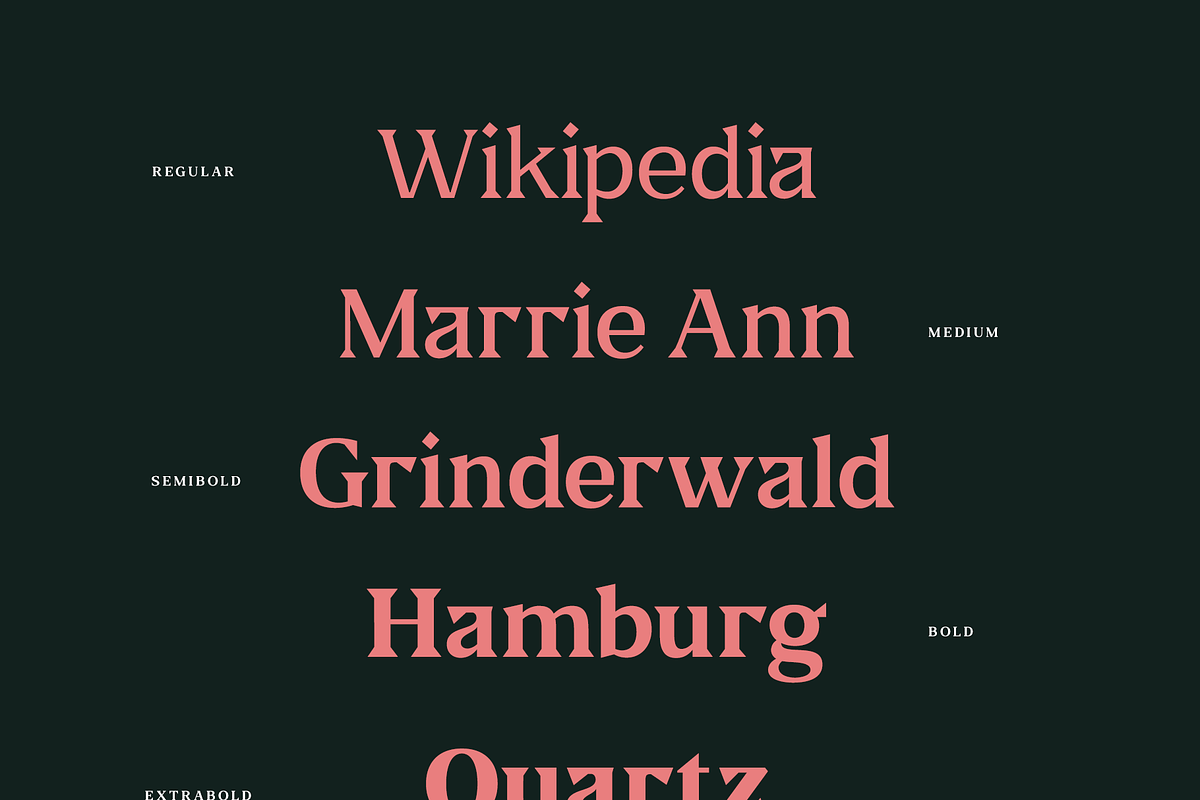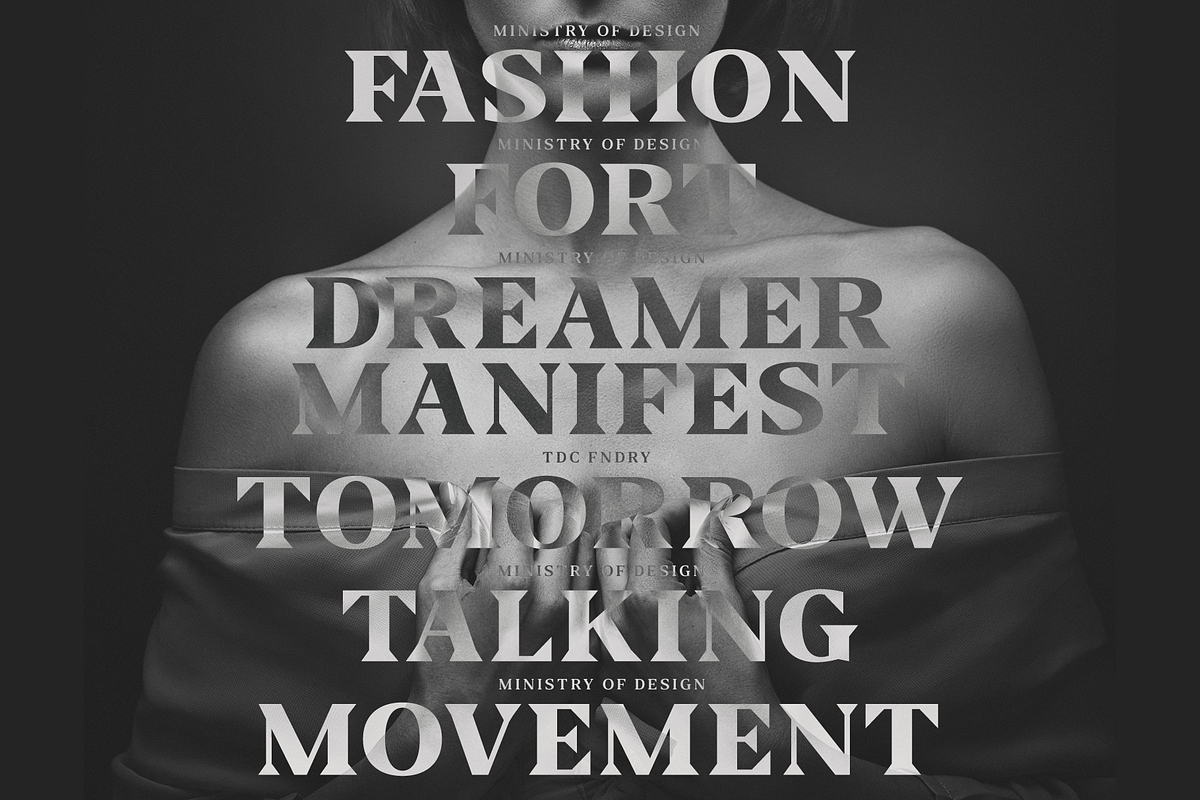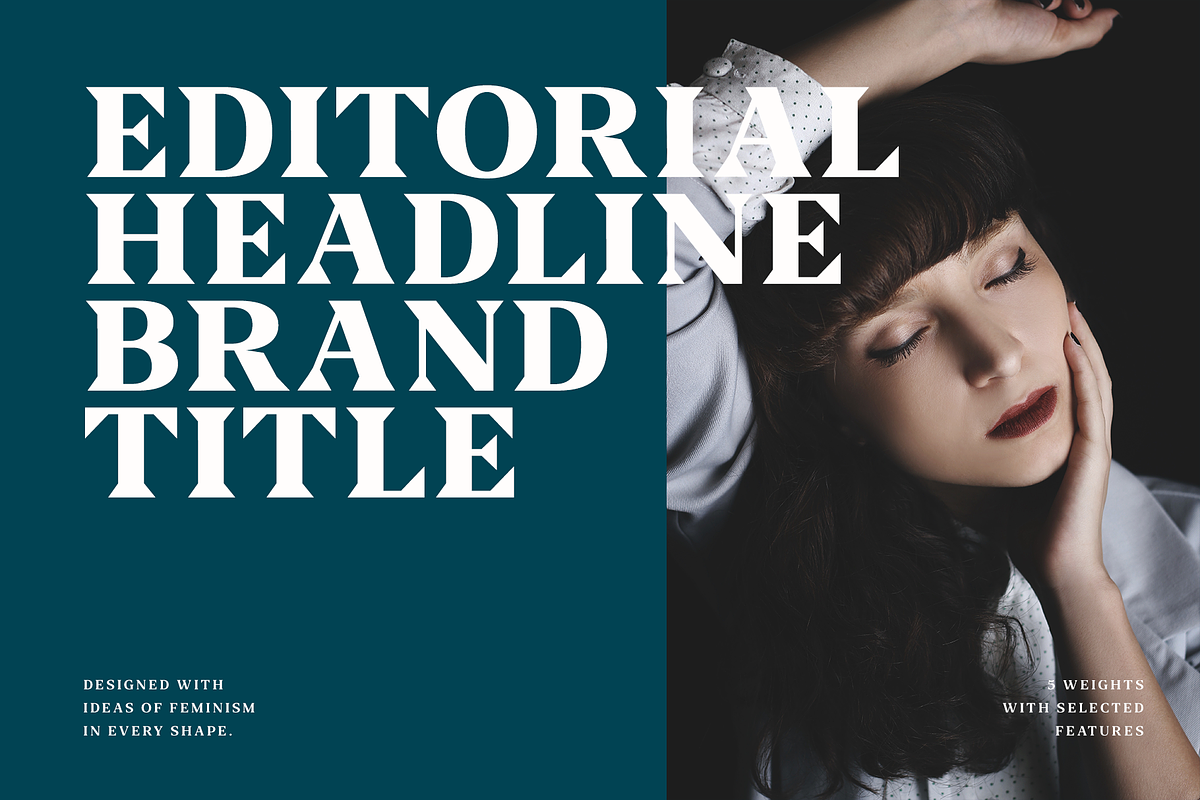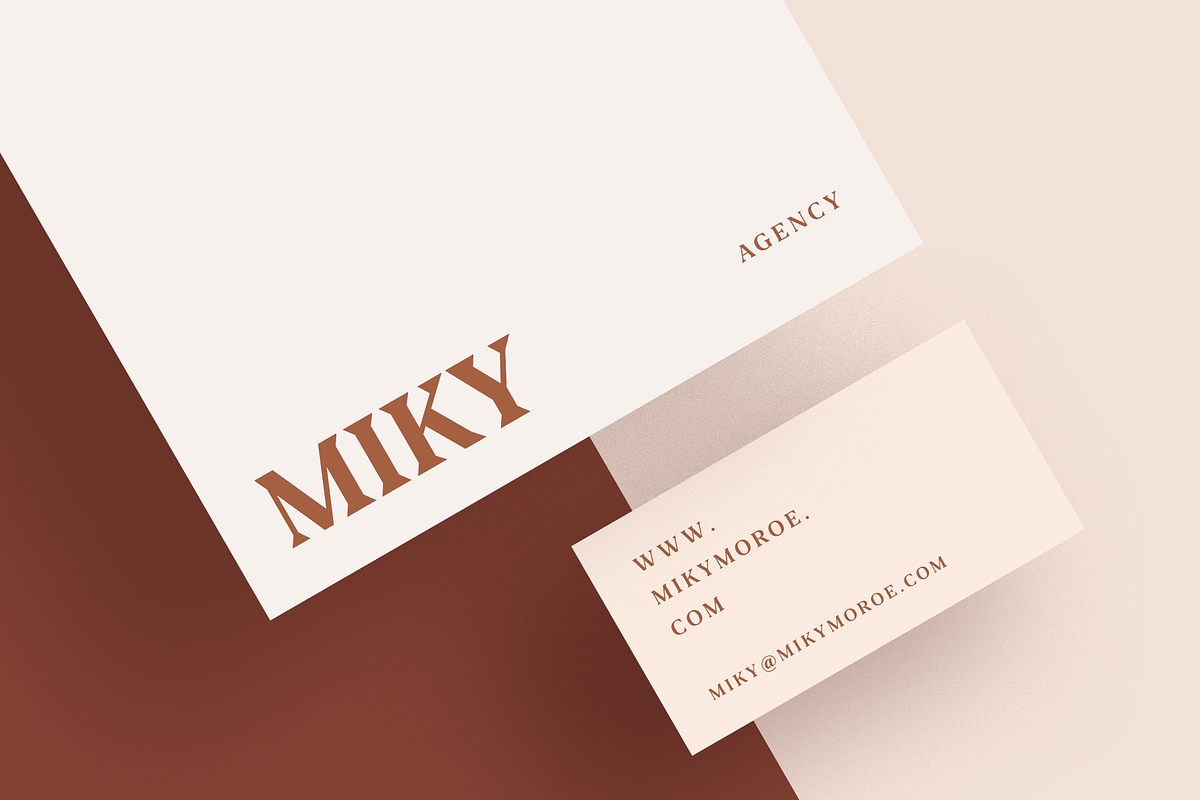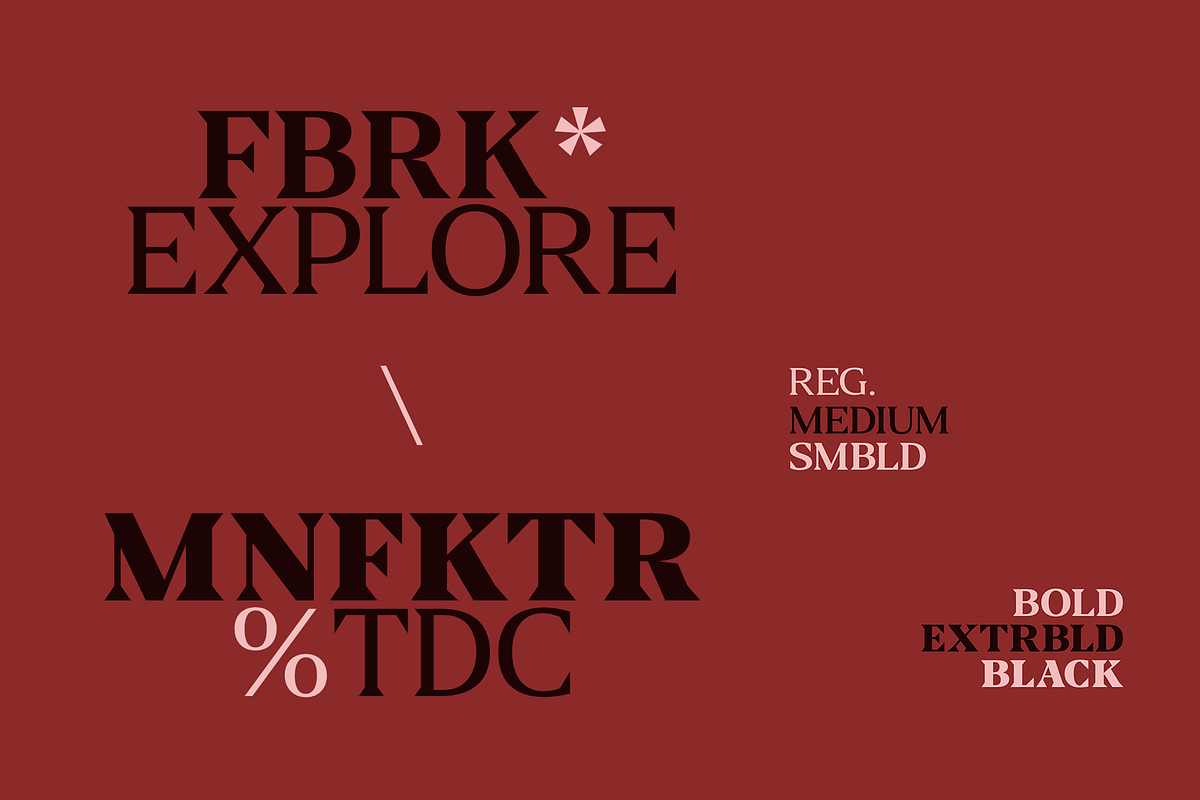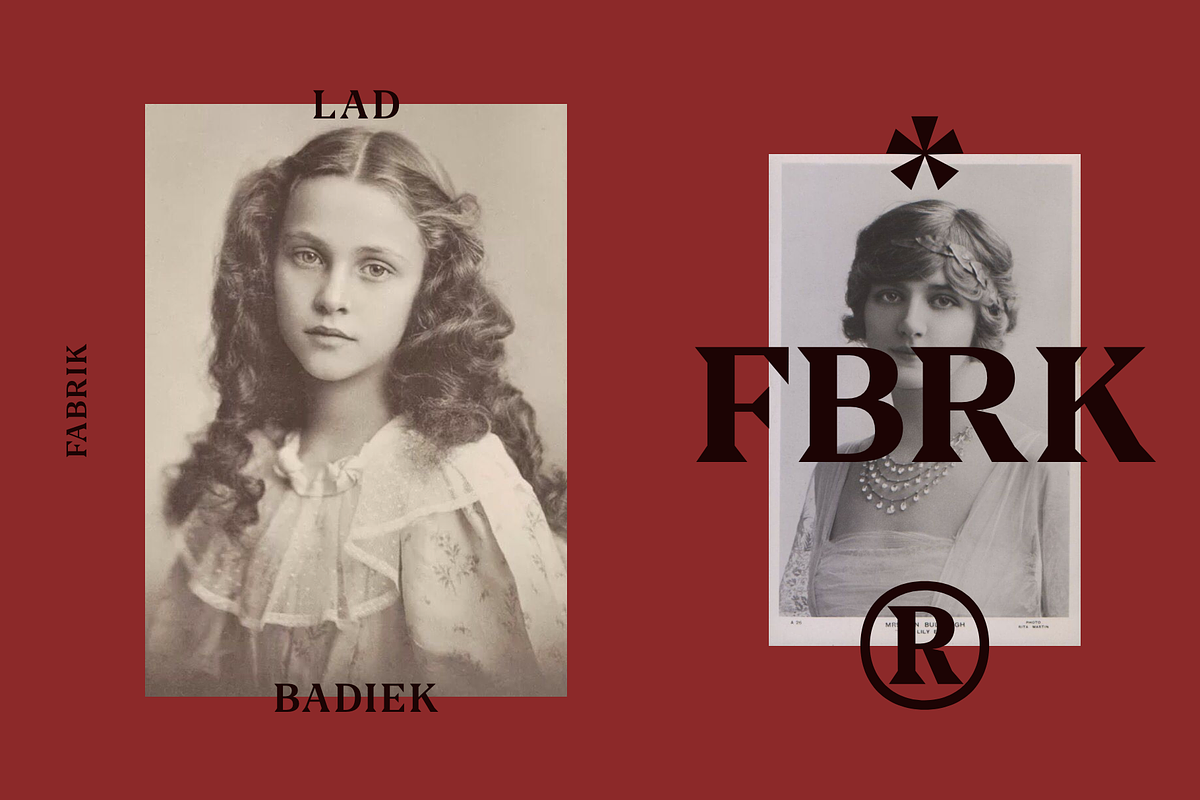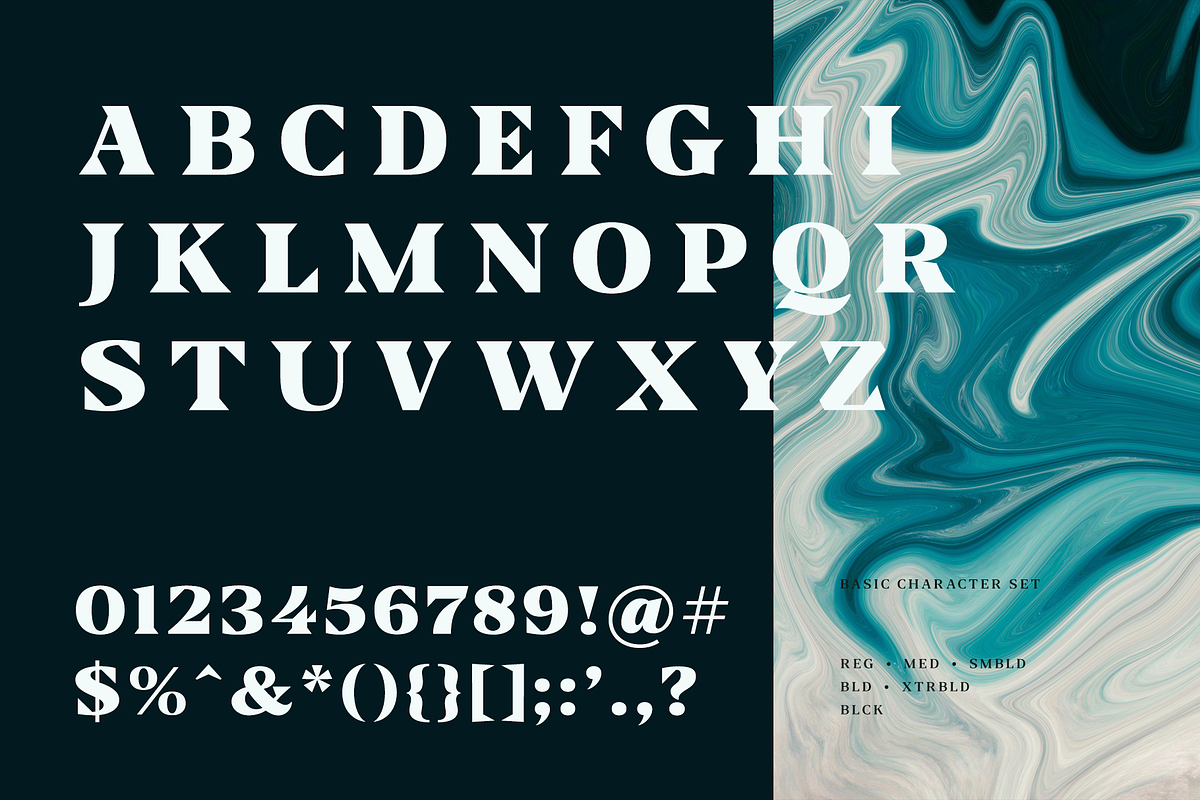
Fab Display - Editorial Font
Fab is the interpretation of a beauty, fashion & editorial serif typeface. Originally inspired by old labels that perfectly display a feminism style brands. The sharp serifs combined with curves give Fab a fabolous and glamor in the same time, without sacrificing functionality. The design is intended for short to medium length texts as well as display use.
- Fab currently has six weights from Regular to Bold and all comes with large language support, ligature and punctuation.
- Fab Regular
- Fab Medium
- Fab SemiBold
- Fab Bold
- Fab ExtraBold
- Fab Black